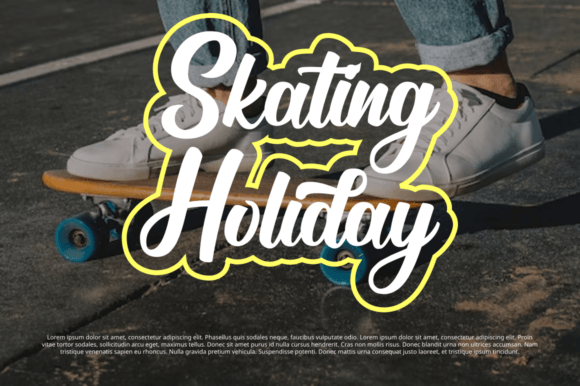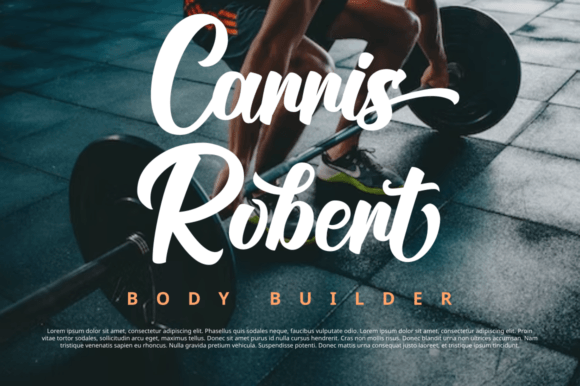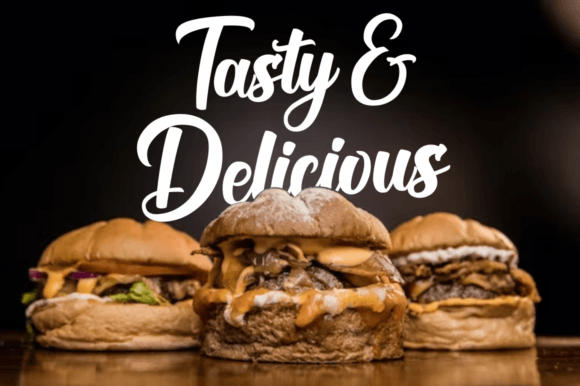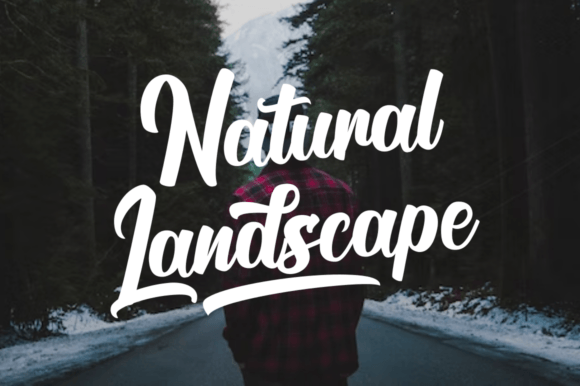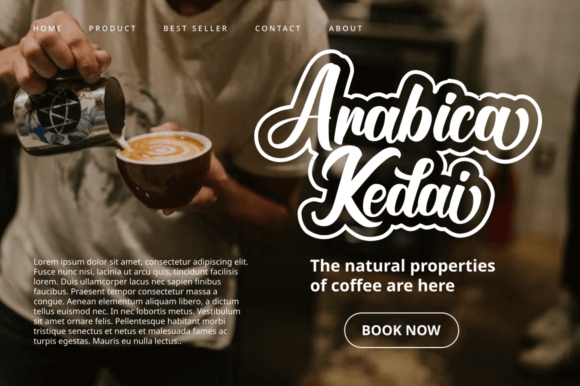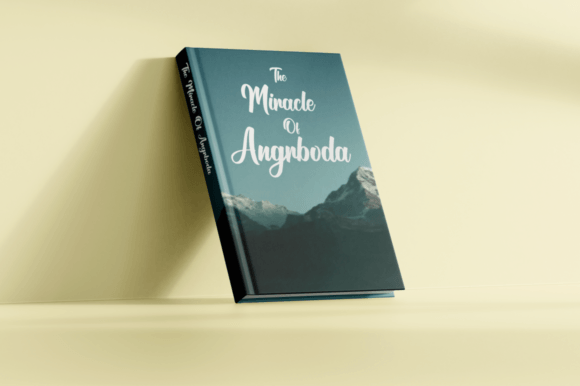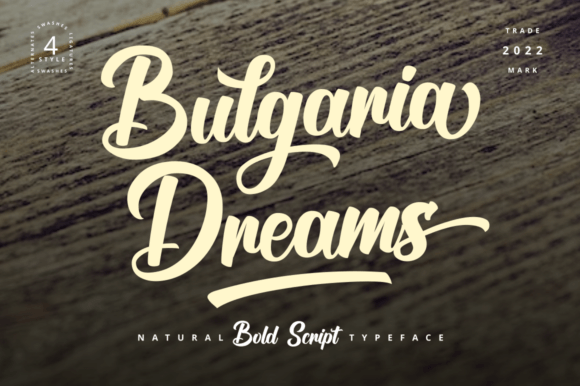
Bulgaria Dreams Font: Elevate Your Designs with Elegant Lettering
Are you searching for the perfect font to elevate your designs, whether it’s for logos, event brochures, or other creative projects? Look no further than the Bulgaria Dreams font. This beautiful lettering style font is designed to bring a touch of elegance and sophistication to your work, with smooth and natural curved lines that mimic the look of writing on paper with a brush pen.
What is Bulgaria Dreams Font?
Bulgaria Dreams is a unique and versatile font that is perfect for designers and crafters looking to add a personal touch to their work. With its smooth, cursive lines and natural flow, this font is ideal for creating beautiful and eye-catching designs. Whether you’re working on a logo, brochure, poster, or merchandise, Bulgaria Dreams font is the perfect solution.
Key Features of Bulgaria Dreams Font
• 4 Font Styles: The Bulgaria Dreams font comes in 4 different styles, allowing you to choose the perfect look for your design. Whether you want a bold and dramatic look or a more subtle and elegant feel, this font has got you covered.
• Smooth and Natural Lines: The font features smooth and natural curved lines that give it a hand-written, brush-pen feel. This makes it perfect for creating designs that look personal and unique.
• PUA Encoded: The Bulgaria Dreams font is PUA encoded, which means you can access all of the glyphs and swashes with ease. This makes it simple to customize your designs and add your own personal touch.
Uses for Bulgaria Dreams Font
The Bulgaria Dreams font is incredibly versatile and can be used for a wide range of design projects. Here are just a few ideas to get you started:
• Logos: Create a beautiful and unique logo for your business or brand with the Bulgaria Dreams font.
• Event Brochures: Use this font to create stunning event brochures that will grab the attention of your audience.
• Poster Titles: Add a touch of elegance to your poster titles with the Bulgaria Dreams font.
• Book Titles: Use this font to create beautiful and eye-catching book titles that will make your book stand out.
• Lettering: The Bulgaria Dreams font is perfect for creating beautiful lettering designs, whether it’s for a personal project or a client.
• Merchandise Design: Use this font to create stunning merchandise designs, such as t-shirts, mugs, and more.
Why Choose Bulgaria Dreams Font?
So why choose the Bulgaria Dreams font for your design projects? Here are just a few reasons:
• Unique and Elegant: This font is truly unique and elegant, making it perfect for designers and crafters who want to add a touch of sophistication to their work.
• Versatile: The Bulgaria Dreams font is incredibly versatile and can be used for a wide range of design projects.
• Easy to Use: This font is PUA encoded, making it easy to access all of the glyphs and swashes.
If you’re looking for a beautiful and elegant font to elevate your designs, look no further than the Bulgaria Dreams font. With its smooth and natural curved lines, 4 font styles, and PUA encoding, this font is perfect for designers and crafters who want to create stunning and unique designs. Whether you’re working on a logo, brochure, poster, or merchandise, the Bulgaria Dreams font is the perfect solution.